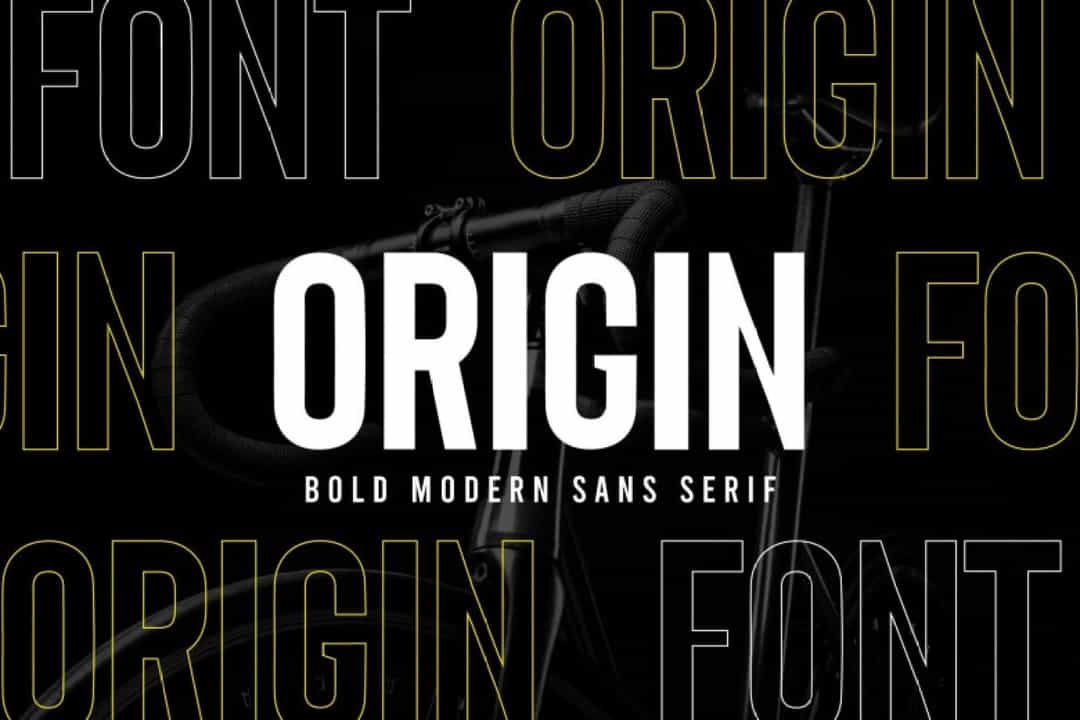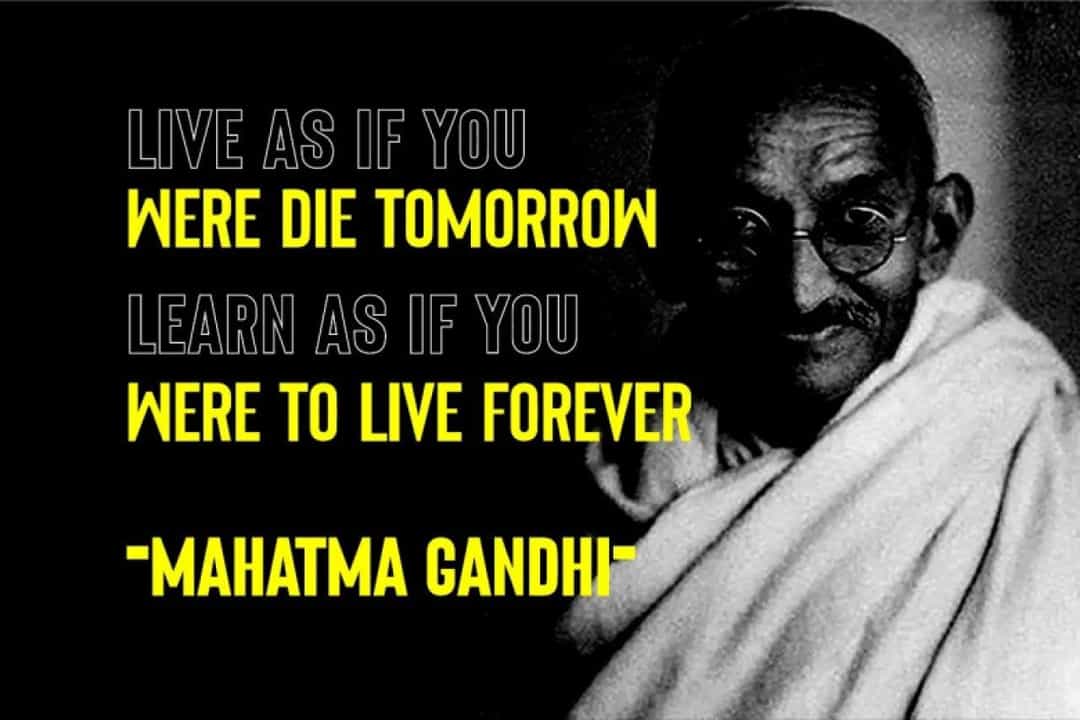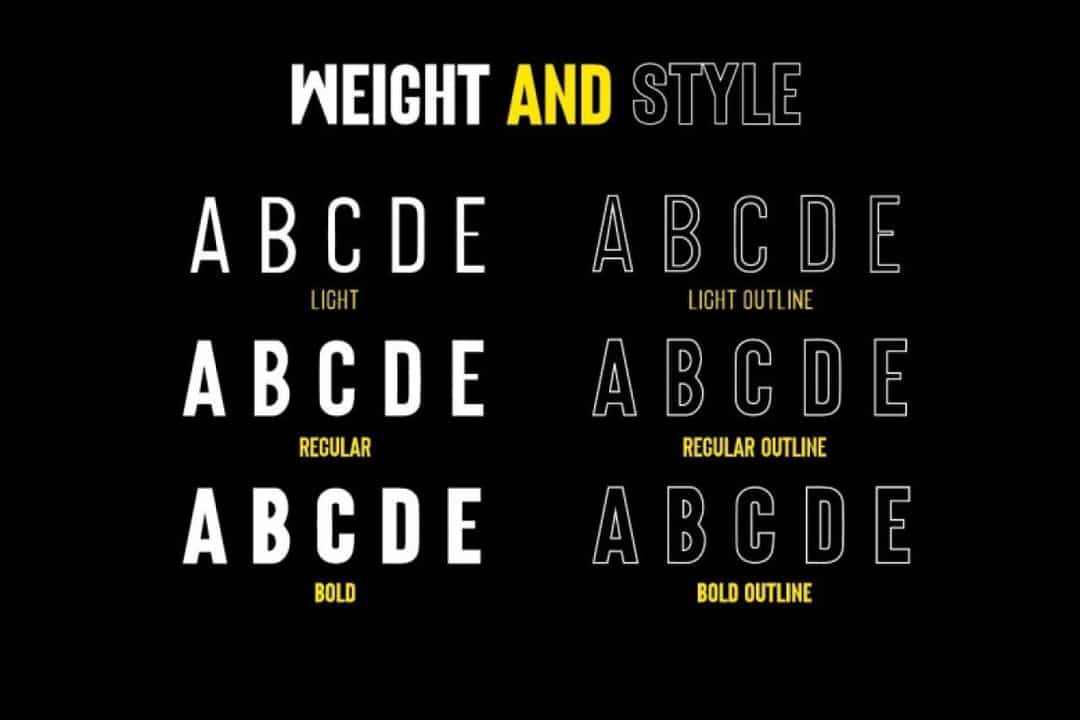
The Origin Bold Sans Serif Font is a modern timeless font suitable for both small and large scale use. Ideal for branding projects, logo creation, clothing branding bundles, product packaging magazine headers or as beautiful text on any picture!